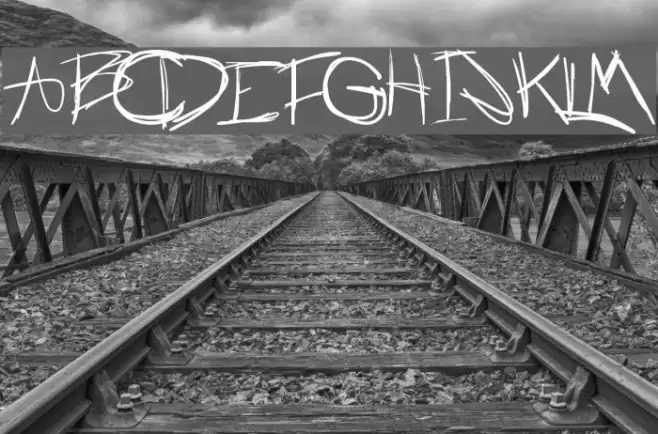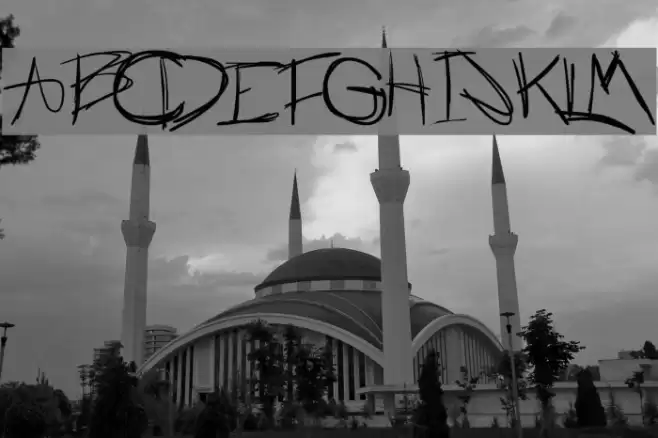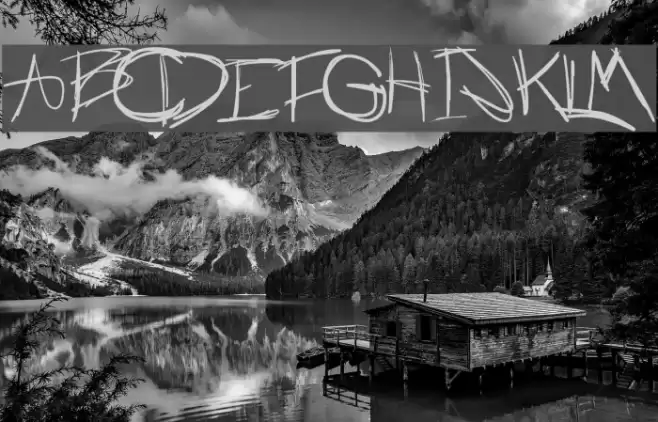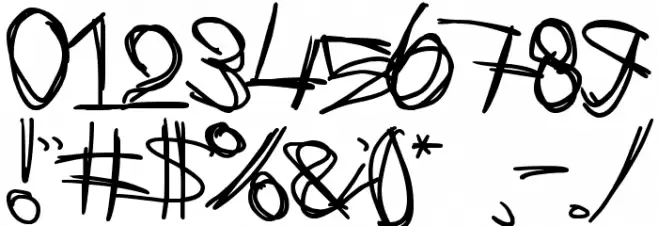
CurrentlyLiving Font
CurrentlyLiving Description
This font features a highly expressive and dynamic style, characterized by its bold, hand-drawn appearance. The letters are irregular and have a graffiti-like aesthetic, with strokes that vary in thickness, giving it a raw and energetic feel. The uppercase and lowercase letters maintain a consistent style, with exaggerated curves and sharp angles. Numbers and special characters follow the same artistic approach, adding to the overall cohesive look. The font's unique style makes it stand out, ideal for projects that require a strong visual impact.
A bold, graffiti-inspired font with dynamic, hand-drawn strokes from Handwritten fonts.
- Proposed Projects: Ideal for street art designs, edgy posters, album covers, and urban-themed branding.
- Character Spacing: Tight
- Overall Style: Modern, Urban